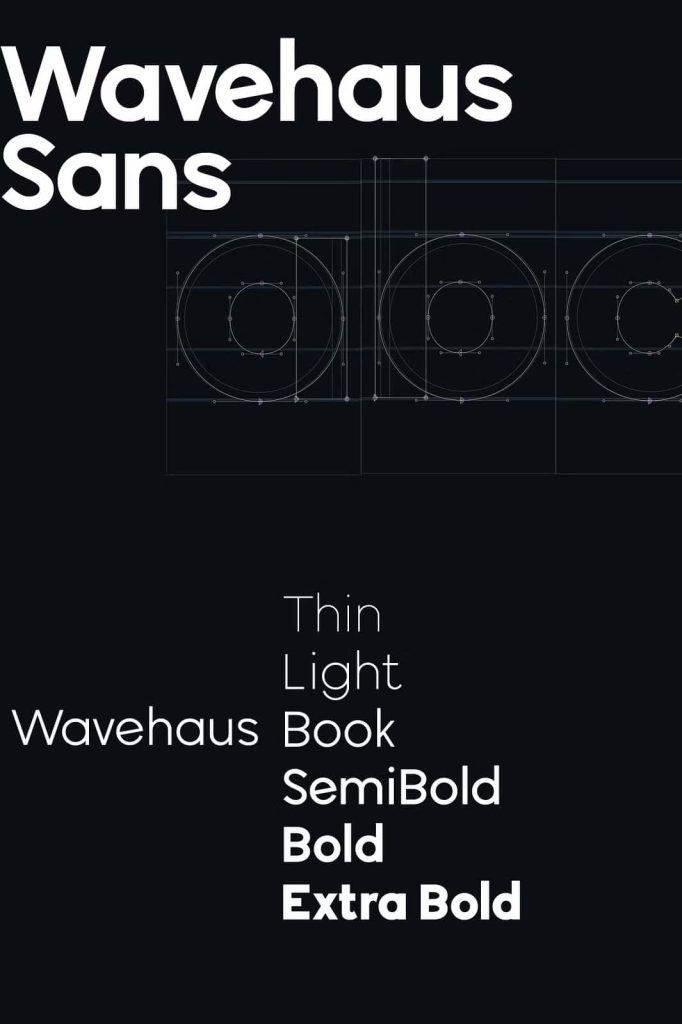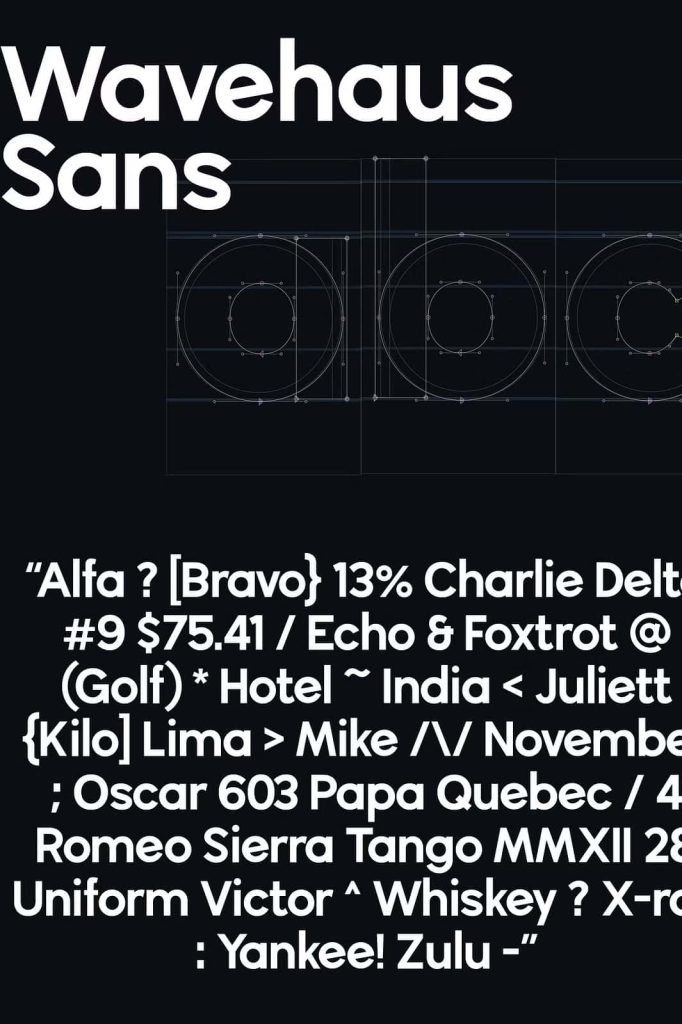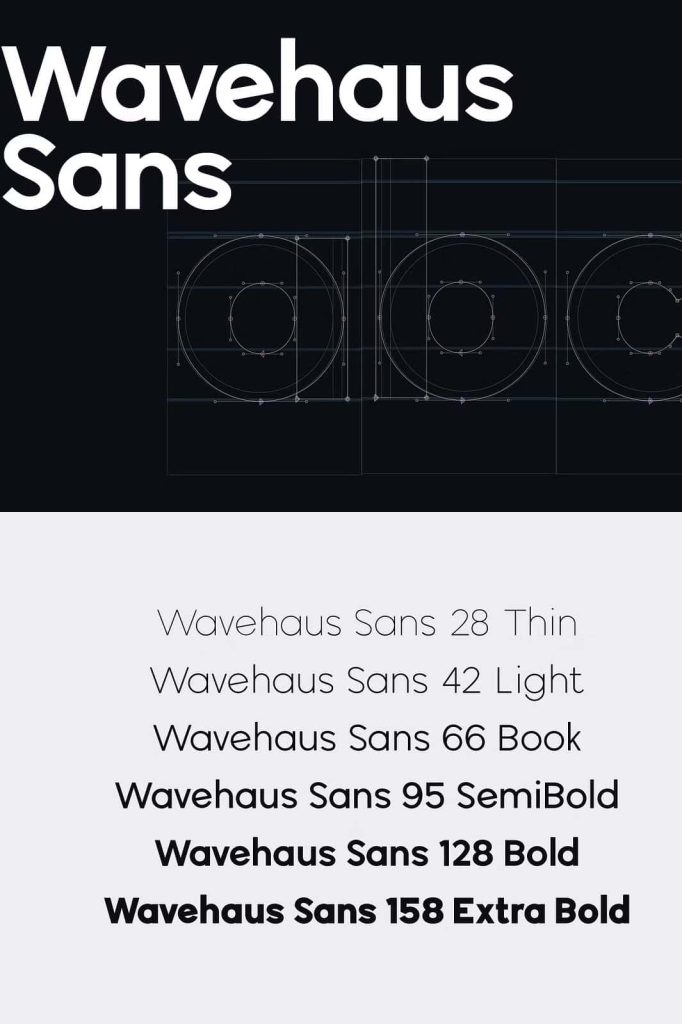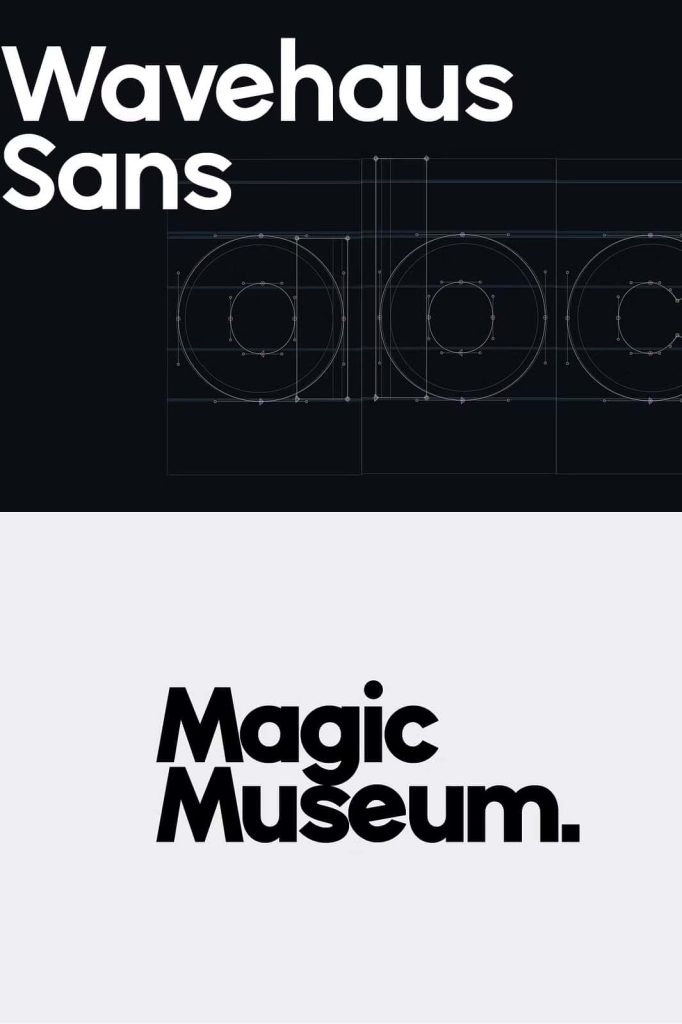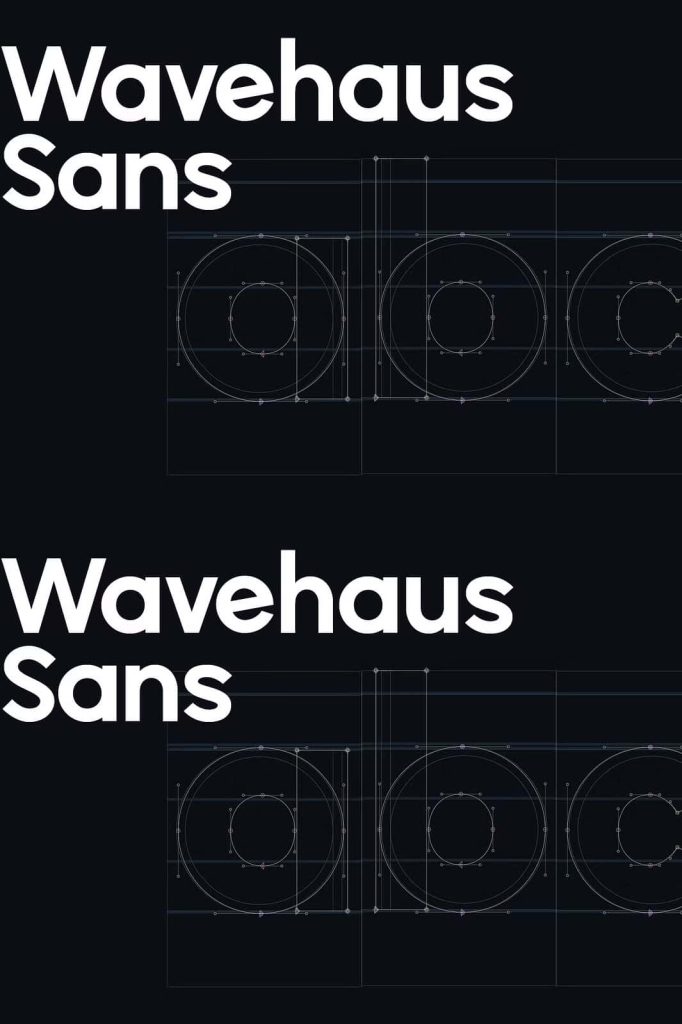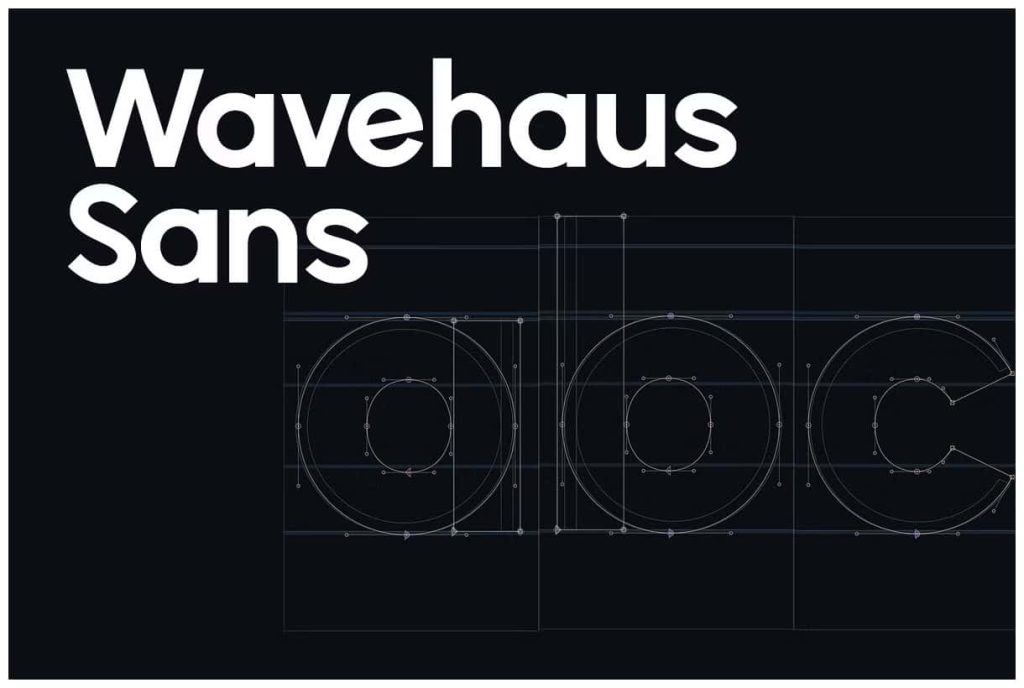
Wavehaus Sans TypefaceleastedApril 11, 2025Fonts Geometric Sans Serif font family with 6 weights including a thin, light, book, semibold, bold and extra bold. Download